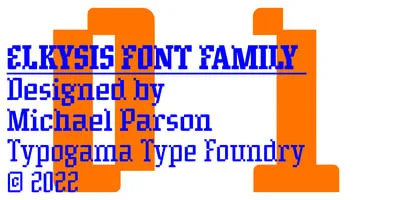
Elkysis Font
Elkysis Font is ideal for futuristic technology brands, sci-fi entertainment campaigns, cutting-edge research institutions, advanced analytics platforms, space exploration materials, quantum computing graphics, artificial intelligence branding, digital transformation projects, innovation laboratories, and progressive applications that celebrate technological evolution and scientific advancement.
What makes Elkysis Font truly exciting is its visionary embodiment of technological evolution and scientific precision that captures the essence of breakthrough innovation and the relentless pursuit of knowledge that drives human progress into the future. This exceptional typeface combines mathematical precision with evolutionary aesthetics, featuring advanced letterforms and progressive character that convey both scientific rigor and forward-thinking vision. The font's evolutionary personality and technological sophistication make it perfect for organizations seeking to communicate innovation leadership, scientific excellence, and the transformative power of advanced research that pushes the boundaries of human knowledge and technological capability.
The Elkysis Font family includes multiple weights and styles: Thin, Light, Regular, Medium, Bold, and Advanced variations designed for maximum technological impact. Each family member maintains the distinctive evolutionary character while offering flexibility for diverse innovation applications and scientific branding systems. The comprehensive character set supports technical typography needs and advanced design elements, making it suitable for international scientific communications.
When you choose Elkysis Font, you're selecting a typography evolution that delivers authentic scientific credibility and technological excellence to every innovative project. This advanced typeface excels in applications where scientific precision and technological leadership are paramount, delivering exceptional innovation appeal while maintaining research authenticity. Whether you're designing technology brands, scientific campaigns, research materials, or innovation marketing content, this font provides the technological sophistication and scientific precision that resonates with researchers and innovators who appreciate breakthrough thinking, scientific advancement, and the evolutionary progression of human knowledge through dedicated research and technological innovation.